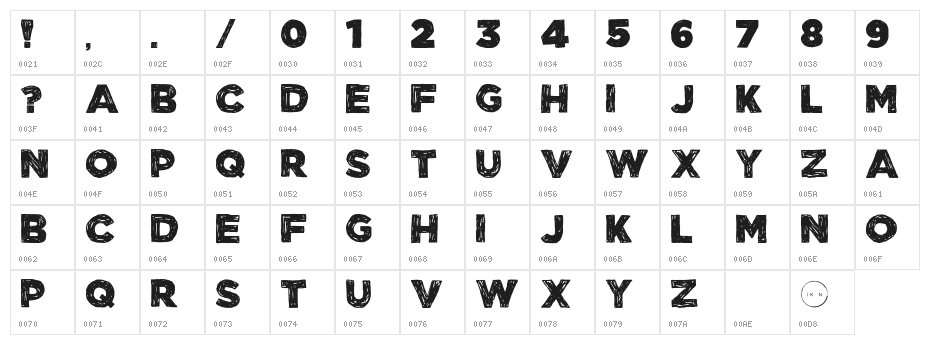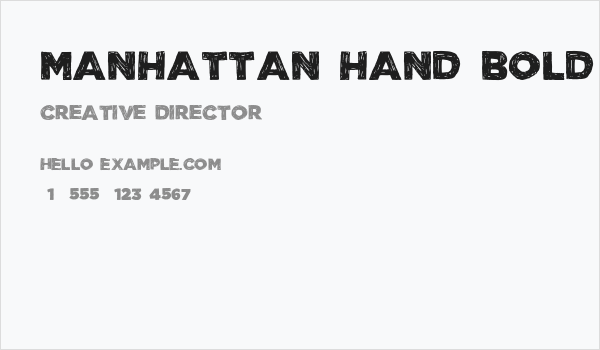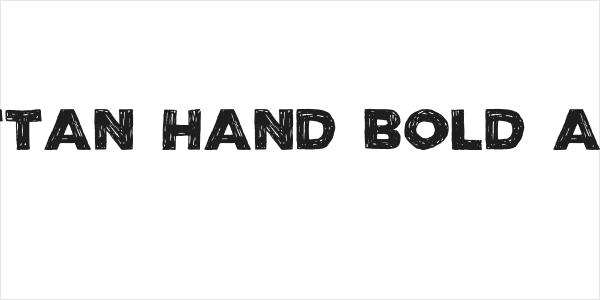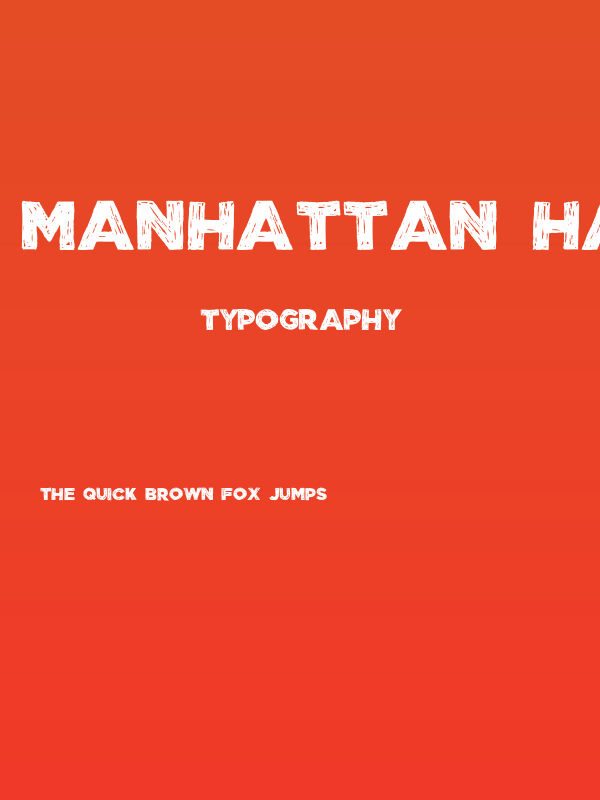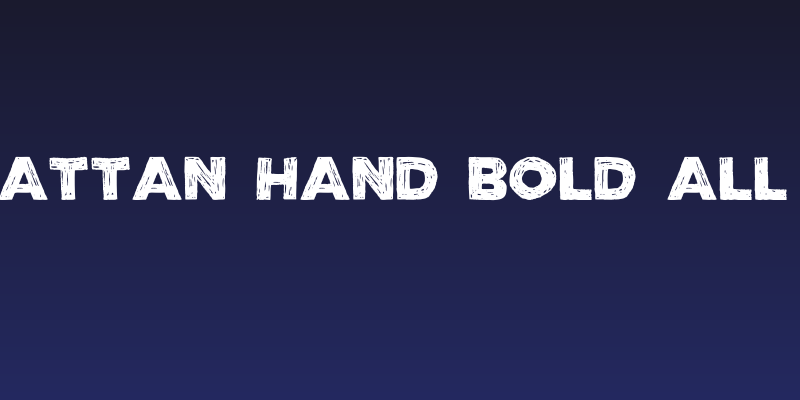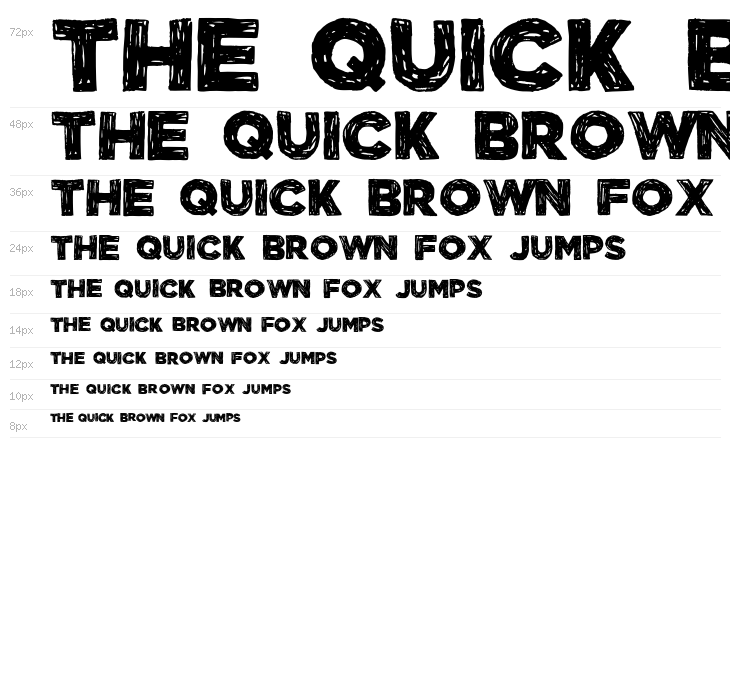
Manhattan Hand Bold All-Caps Font
Manhattan Hand Bold All-Caps Description
This bold, all-caps font features a distressed, textured appearance that gives it a rugged and urban feel. The characters are thick and sturdy, with a slightly uneven surface that adds a hand-crafted, artistic touch. The font's boldness and unique texture make it stand out, making it ideal for projects that require a strong visual impact. Its design is reminiscent of street art or graffiti, lending a contemporary and edgy vibe. The letters are evenly spaced, ensuring readability while maintaining a dynamic and energetic look. This font is perfect for designs that aim to capture attention and convey a sense of boldness and creativity.
| Proposed Projects | Ideal for posters, album covers, branding, and streetwear designs. |